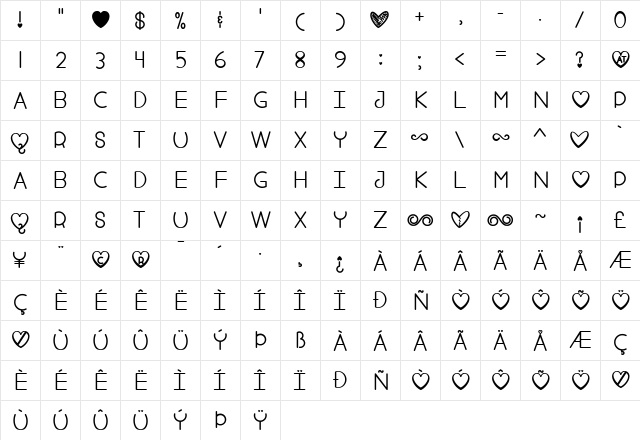
Fool For Love Regular
Design Context for Fool For Love Typeface
Fool For Love offers clean, dependable letterforms without strong stylistic allegiance, making it a practical choice for designers who need flexibility.
Pro Tip: Pair Fool For Love with a font of contrasting weight or personality to build a more expressive typographic hierarchy.